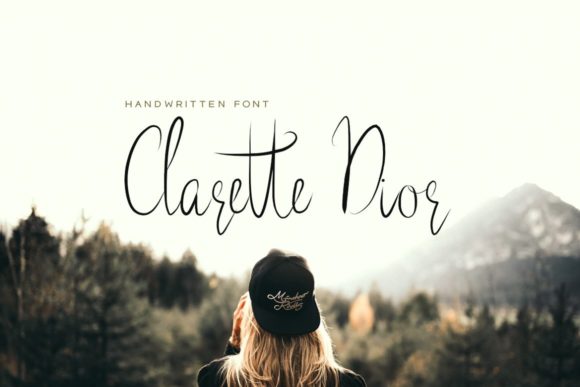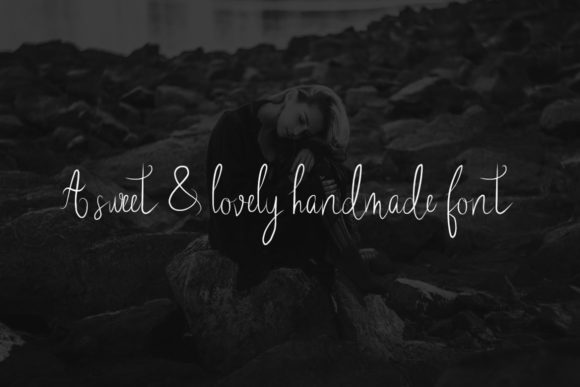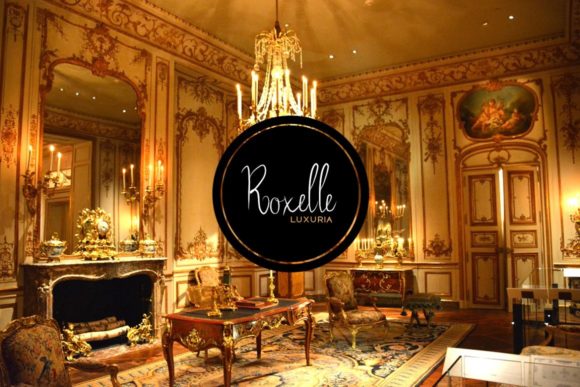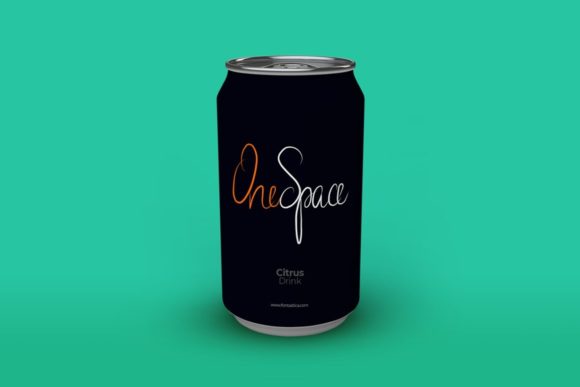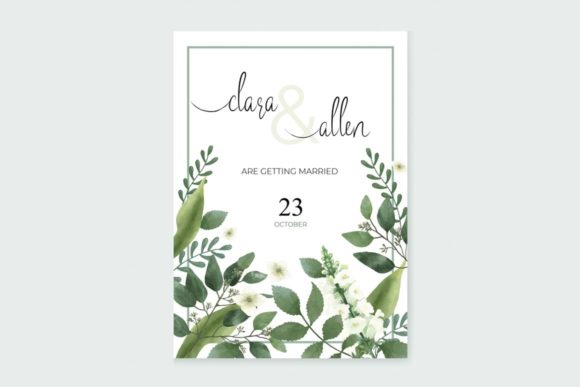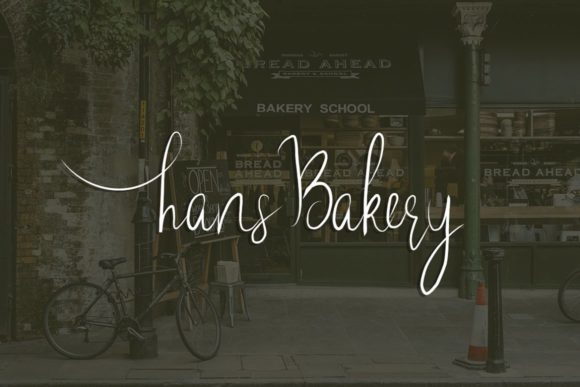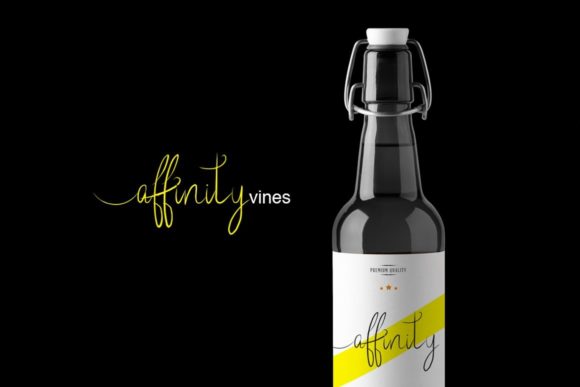
Clarette Dior Font
About Clarette Dior Font
Clarette Dior is a beautiful light handwritten font with a unique feel and a stunning impact. It will add a luxury spark to any design project that you wish to create!